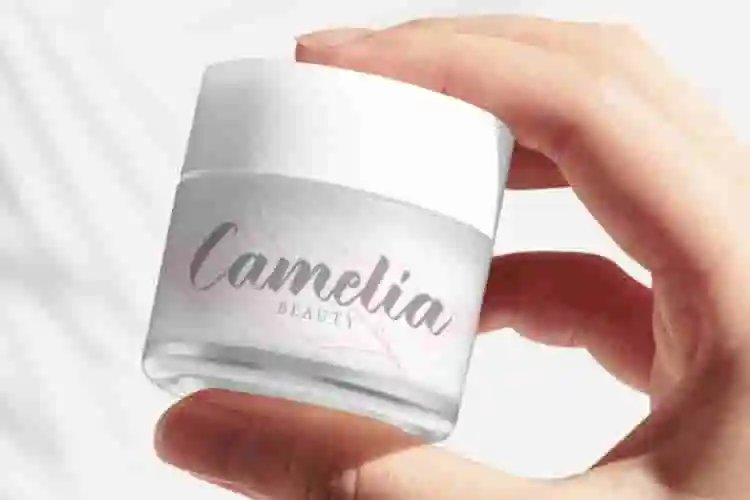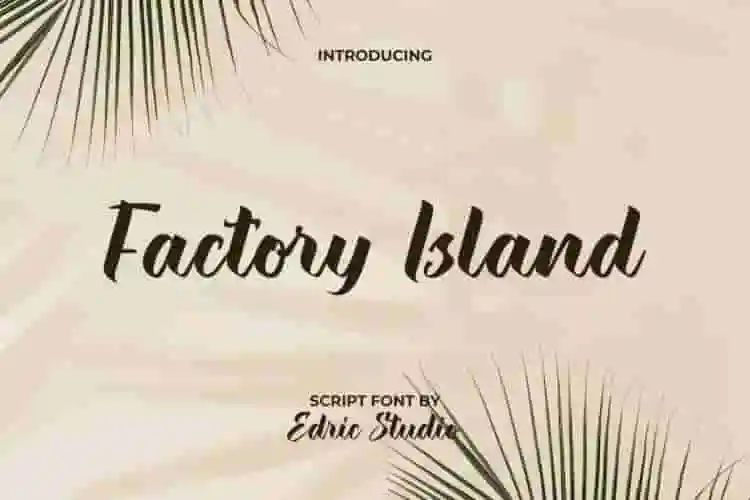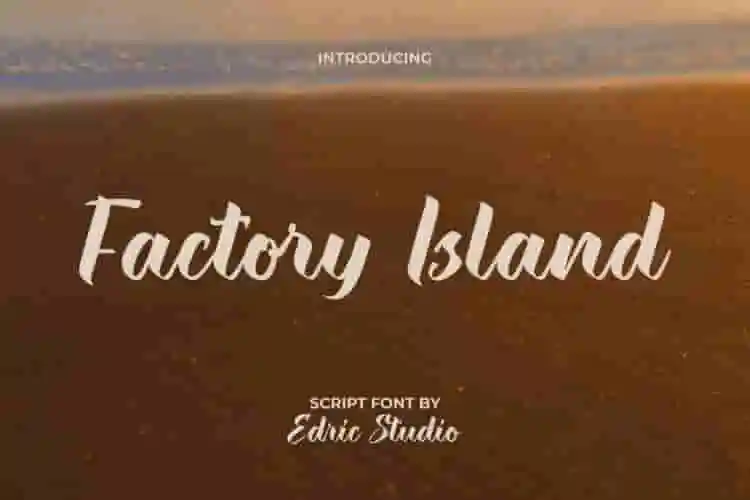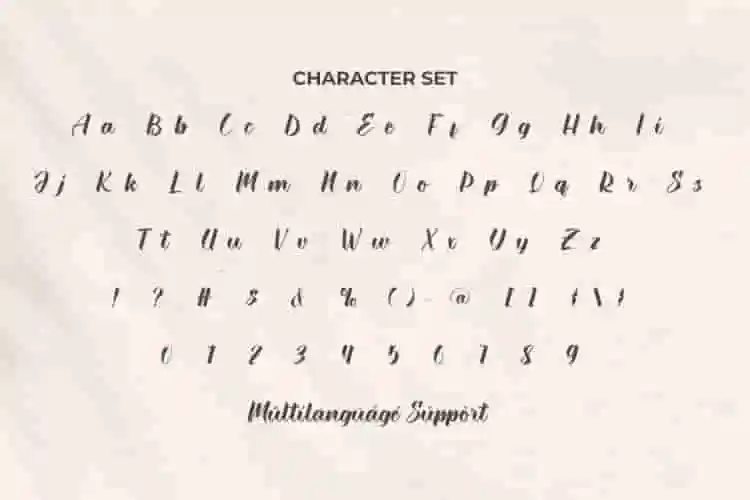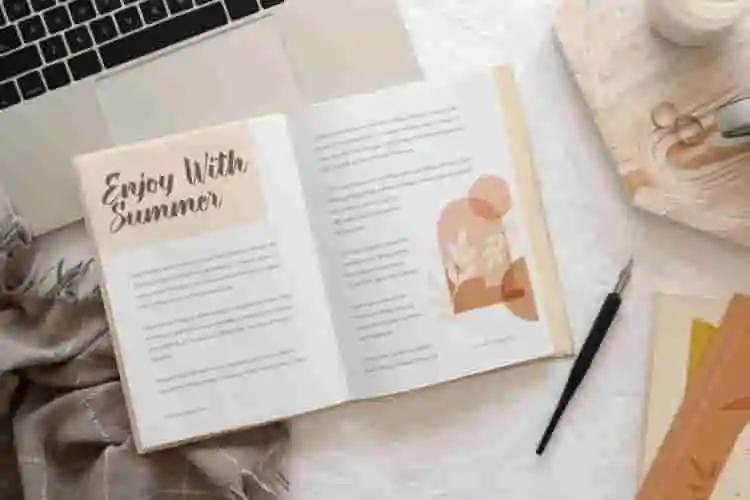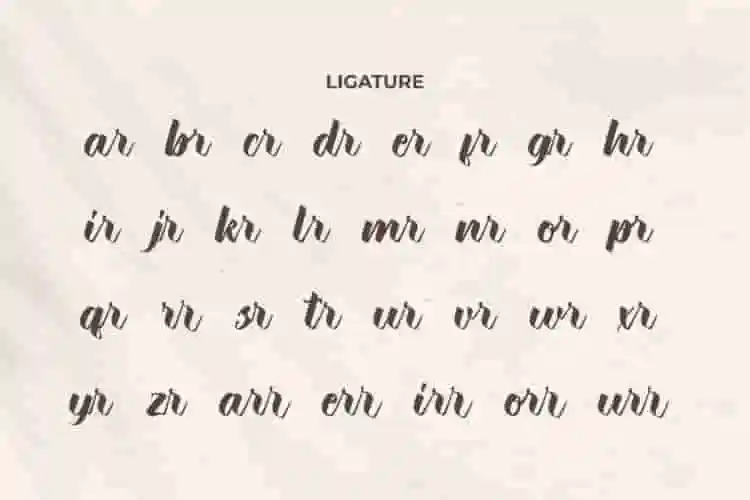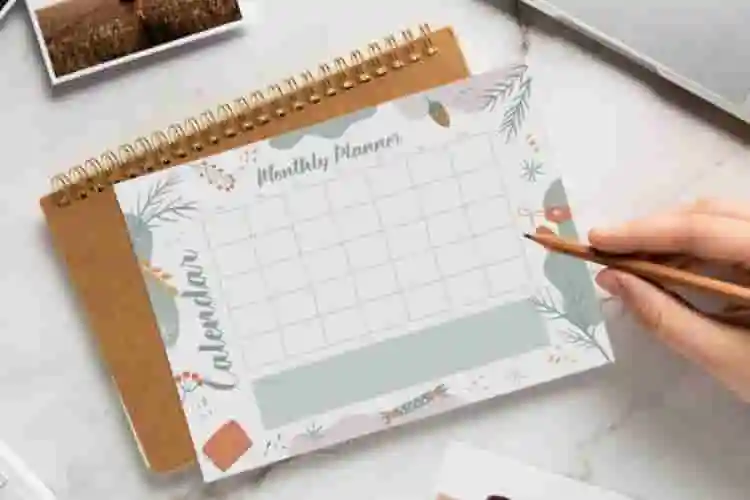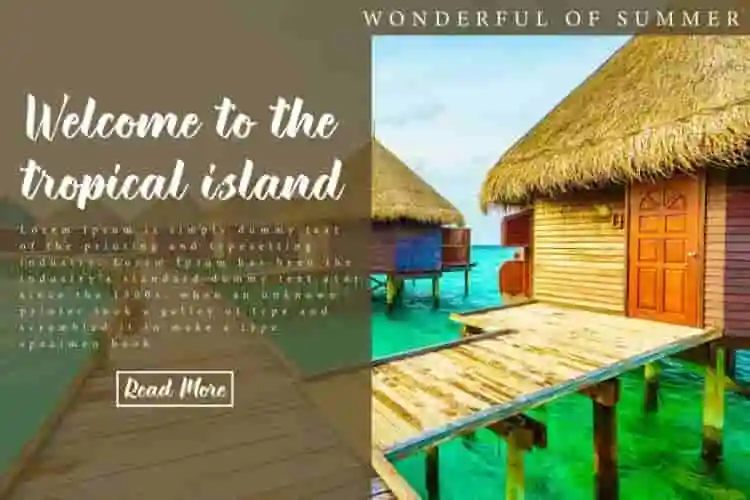
Factory Island Display Font
Factory Island Font is a thick script display font with a modern look, designed by EdricStudio. This typography has a casual look and dense filled dominant brush shape that is timeless and will suit any industry, such as artist, fashion, furniture, restaurant, handicraft, printing, publishing, real estate, skincare, travel agency, wedding, writer, and many more.
Factory Island Font comes with a full set of Uppercase and Lowercase Basic Characters, Number, a large range of Punctuation and Symbol. It has a stunning characters set, perfectly managed with well spaced and kerning. Factory Island Font also comes with additional ligature characters that make it a perfect bond, will be able to complement for any project (with extended license) including: billboard, brand logo, brochure, calendar, header, invitation, product packaging, quote, screen print, sticker, website, etc.
Step into a world of grit, steel, and structure with Factory Island, a bold display font inspired by industrial design, urban landscapes, and vintage signage. Built with strong lines and solid geometry, this font is perfect for projects that need a rugged, bold, and commanding presence.
Ideal for logos, merchandise, branding, posters, labels, and editorial titles, Factory Island brings an authentic, mechanical vibe to your work.
Looking for a typeface with power and personality? Introducing Factory Island, a bold industrial display font inspired by factory signage, metal structures, and the raw beauty of industry.
• Industrial-Inspired Design
• Bold and Clean